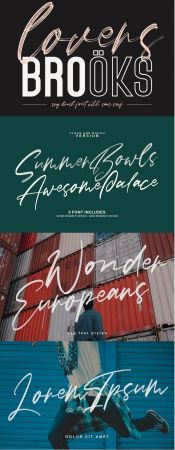
Give your designs an authentic brush handcrafted feel. "Lovers Brooks" is perfectly suited to signature, stationery, logo, typography quotes, magazine or book cover, website header, flyer, clothing, branding, packaging design and more.